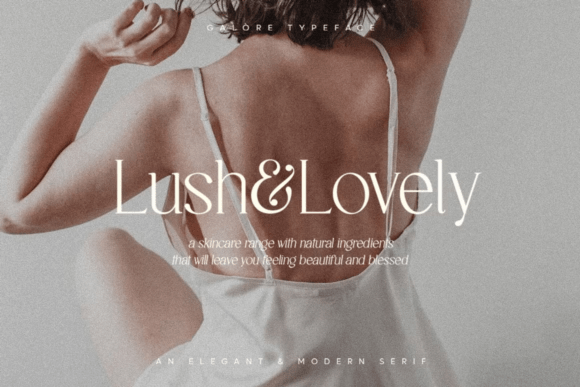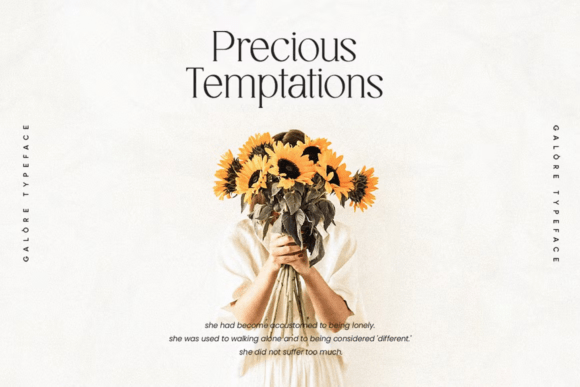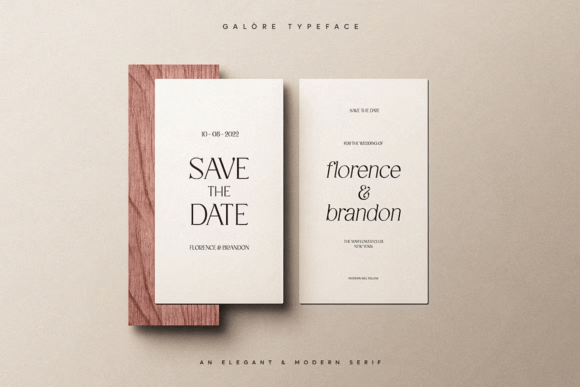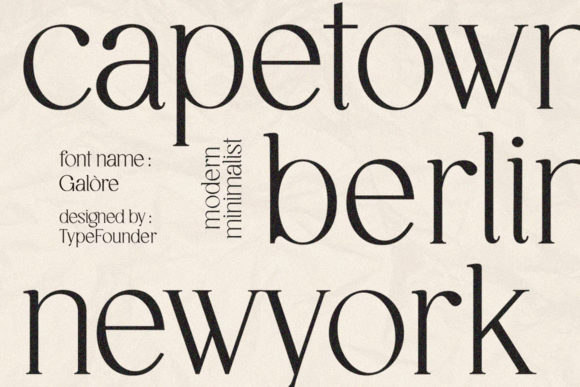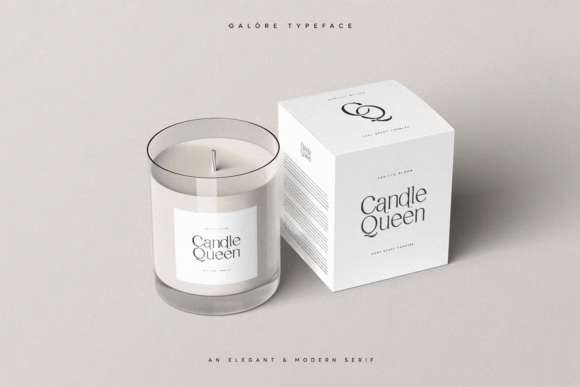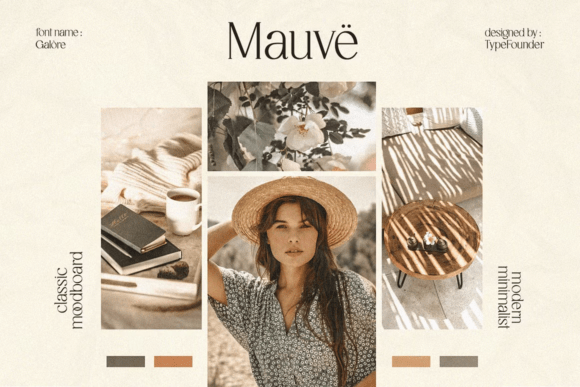
Introducing Galore Font: Effortless Luxury for Your Visuals
In the world of typography, finding the perfect font can make all the difference in elevating your design to the next level. For creatives seeking to add a touch of luxury to their visuals, Galore Font is the perfect solution. This modern serif font is designed to provide an effortless, high-end feel that’s both clean and sophisticated.
The Essence of Galore Font
Galore Font is more than just a typography; it’s an experience. With its sleek, modern design, it instantly adds a premium feel to any visual project. Whether you’re working on bold headlines or subtle body text, Galore Font seamlessly adapts to create a cohesive, high-end look. Its versatility makes it an ideal choice for a wide range of applications, from branding and editorials to fashion projects and packaging.
Key Features of Galore Font
- Modern Serif Design: Galore Font boasts a contemporary serif design that’s both elegant and approachable. Its clean lines and subtle curves create a sophisticated look that’s perfect for luxury brands and high-end projects.
- Effortless Luxury: The font’s design philosophy revolves around effortless luxury. It doesn’t try to overdo it; instead, it subtly elevates your visuals to create a lasting impression.
- Italic Style: One of the standout features of Galore Font is its italic style. This is where the magic truly happens, adding a dynamic flair to your text that’s both classy and sophisticated.
- Versatility: Galore Font shines in its versatility. It’s suitable for a wide range of projects, including branding, editorials, fashion projects, packaging, and more. Its adaptability makes it a valuable asset for any designer.
Who is Galore Font for?
Galore Font is specifically designed for creatives who want their work to stand out while maintaining a classy, sophisticated look. This includes:
- Graphic Designers: Looking for a font that can elevate their branding and advertising projects.
- Fashion Designers: Seeking typography that resonates with luxury and style for their fashion projects and editorials.
- Packaging Designers: Needing a font that adds a premium feel to product packaging.
- Content Creators: Aiming to add a touch of elegance to their editorials and digital content.
Why Choose Galore Font?
Choosing Galore Font for your projects comes with several benefits:
- Instant Luxury Feel: It provides an instant uplift to your visuals, giving them a premium feel.
- Easy to Use: Its clean design and versatile nature make it easy to integrate into any project.
- Highly Versatile: Suitable for a wide range of applications, from digital content to print materials.
- Unique Aesthetic: Offers a distinctive aesthetic that can help your work stand out.
Galore Font is a game-changer for creatives looking to add a touch of effortless luxury to their visuals. Its modern serif design, versatility, and elegant aesthetic make it the perfect choice for anyone seeking to elevate their design work. Whether you’re a graphic designer, fashion designer, or content creator, Galore Font is an invaluable tool that can help you achieve your design goals with style and sophistication.
So why settle for ordinary when you can have extraordinary? Choose Galore Font for your next project and experience the magic of effortless luxury.